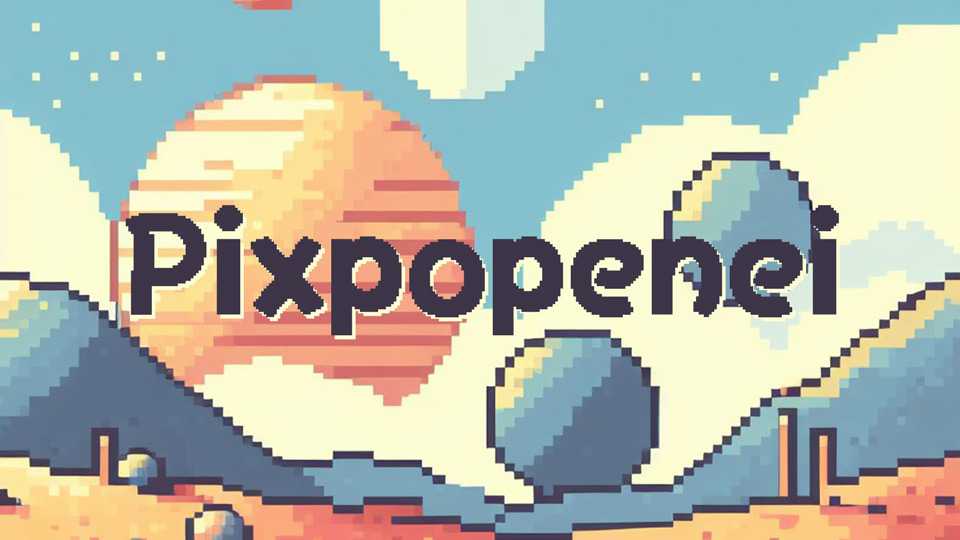
Download Pixpopenei font, the typeface that brings a playful and wondrous world of pixels to life. This marvelous pixel font captures the spirit of pixel art and adds a dash of enchantment to every letter.